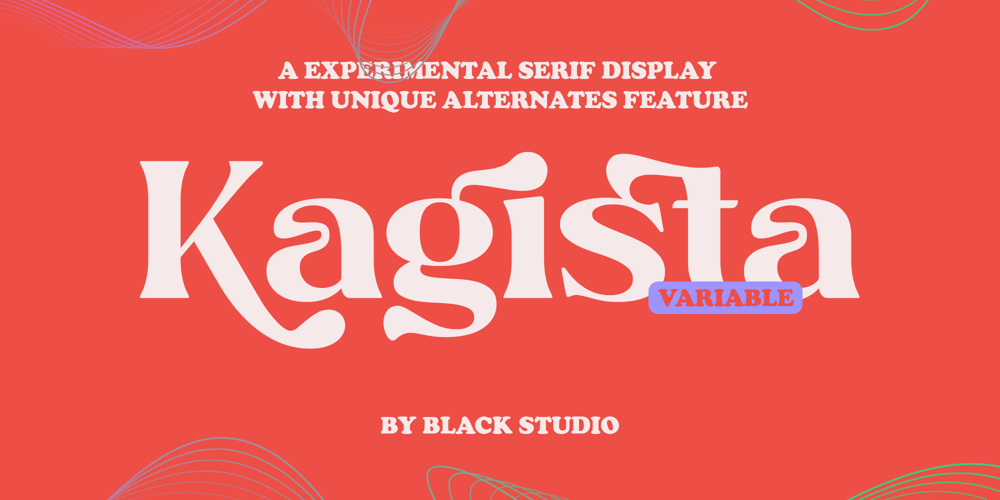
Kagista Display Font Family was designed by Reza Haitami and published by Black Studio. Kagista Display contains 22 styles and family package options. Kagista is a bold, modern variable display font designed for maximum visual impact. With adjustable weight and width axes, it offers flexibility for creating striking headlines, dynamic posters, and innovative branding. Its sharp lines and contemporary style make Kagista a perfect choice for projects that demand attention while maintaining a sleek and professional aesthetic.